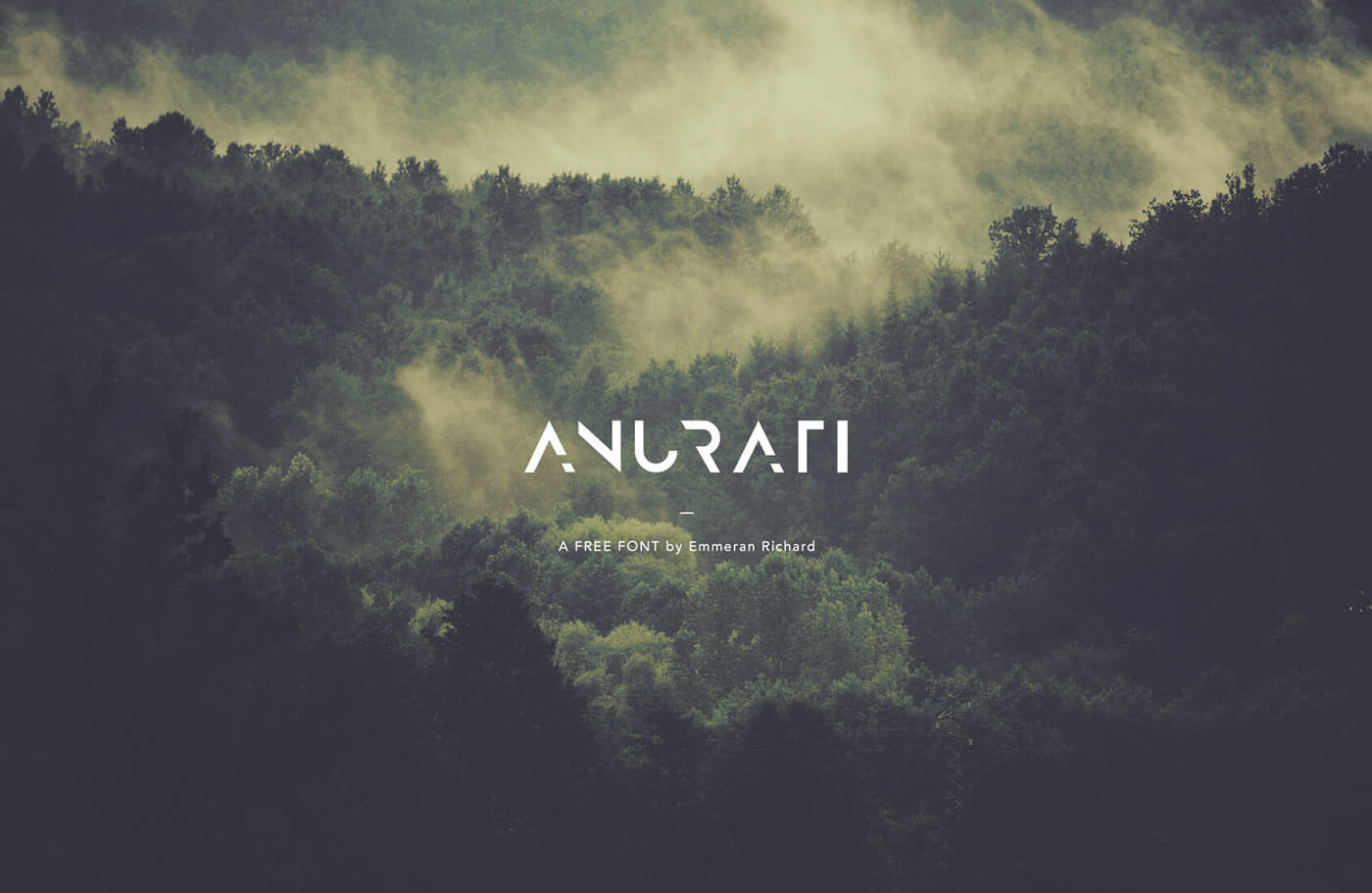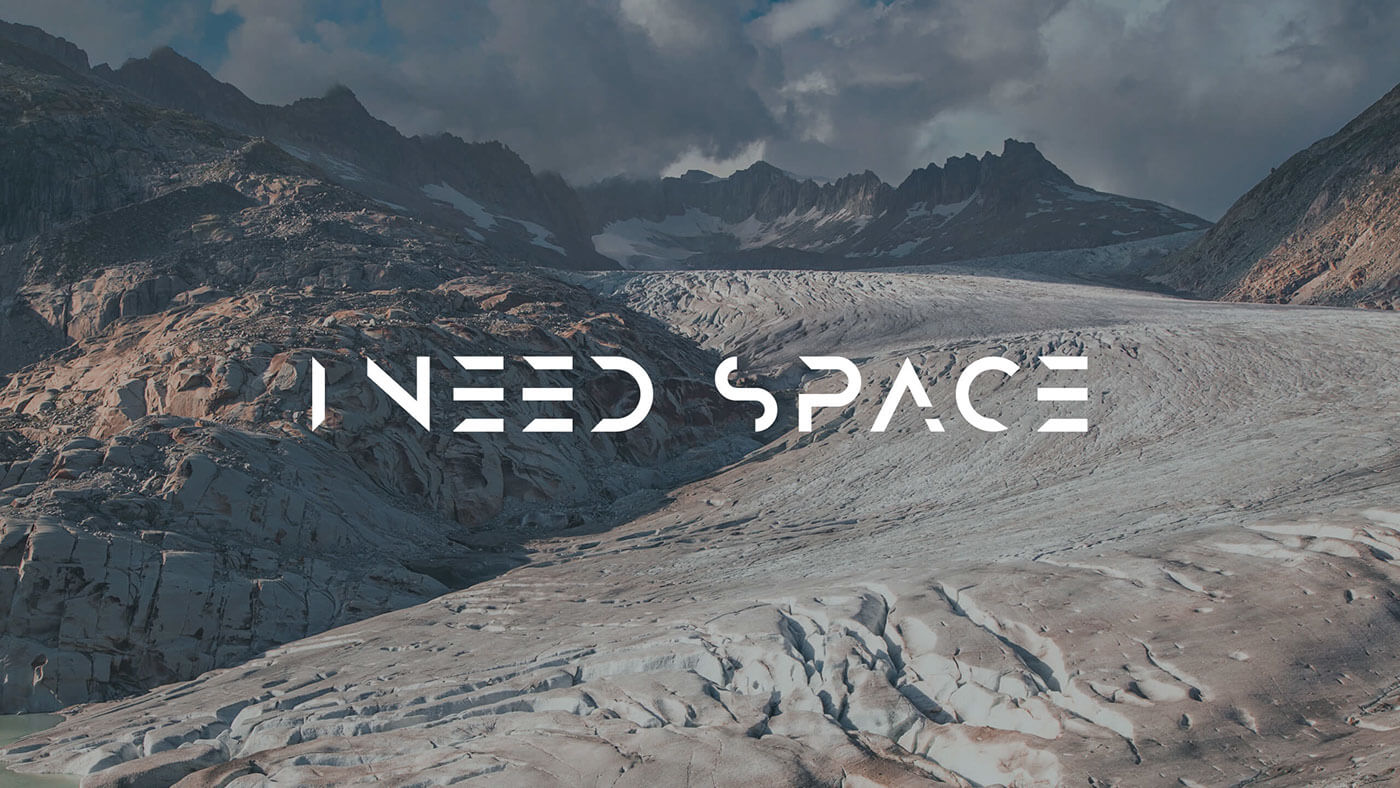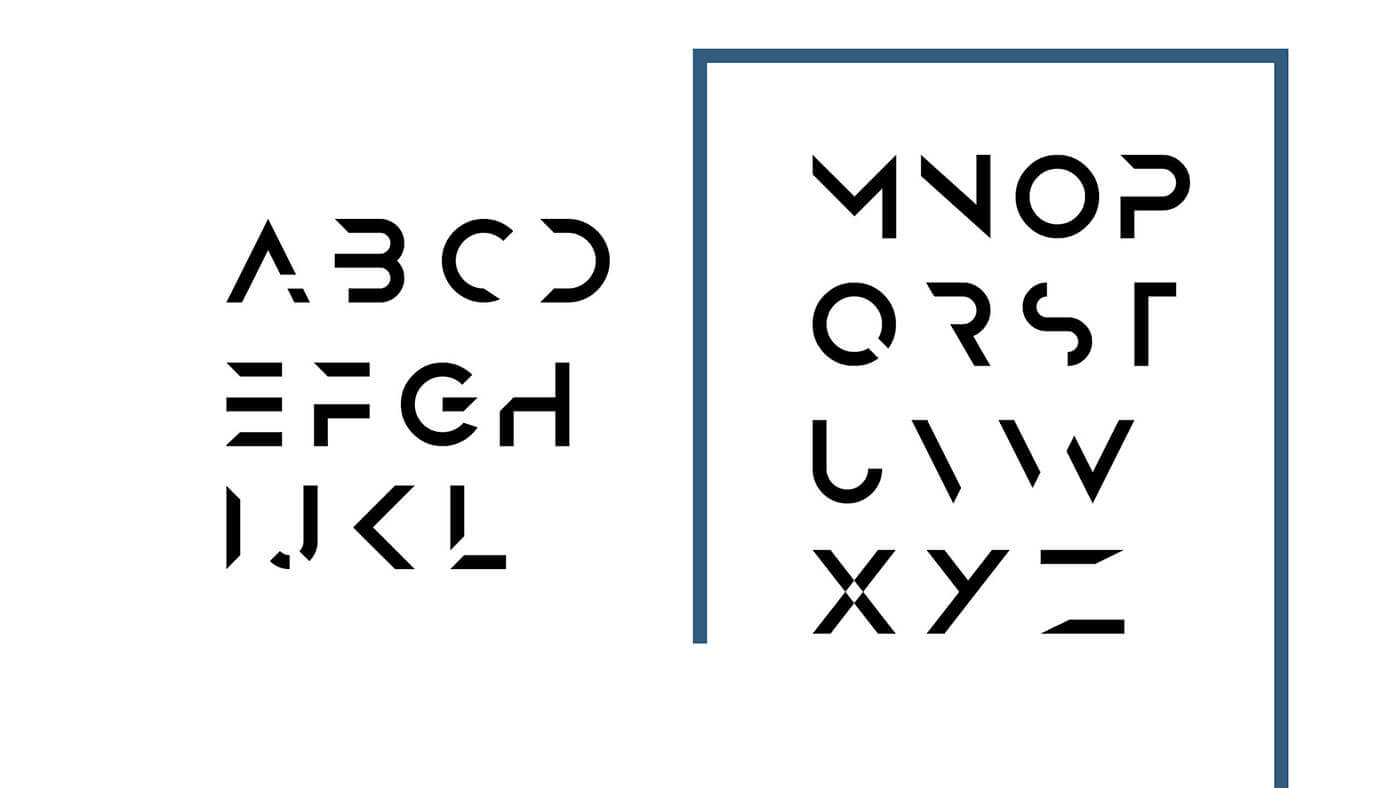
Anurati Free Font
Anurati free font it’s a kind of futuristic sans serif strong type, very cool for headlines posters flyers, it’s modern and looks great. Designed by Emmeran Richard, it’s available for personal and commercial use.